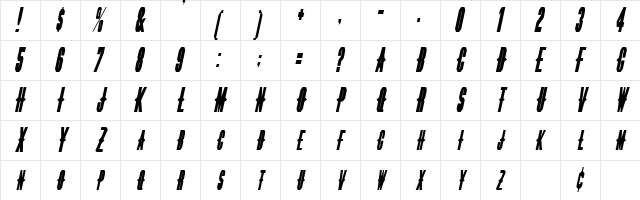
Thorns Oblique
Design Context for Thorns Typeface
Thorns is a composed and adaptable typeface that performs quietly and consistently across a wide range of design contexts. The dynamic lean of this cut emphasises speed and emphasis in any layout.
Pro Tip: Try Thorns for annotation and caption copy alongside an upright companion — the contrast in angle creates a dynamic but ordered typographic system.